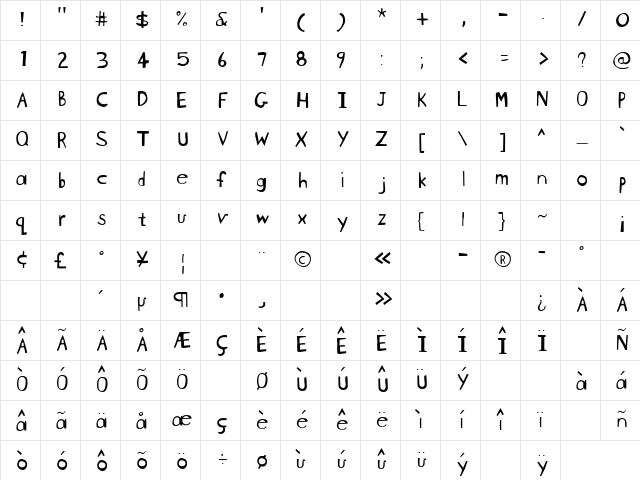
BlockheadUplugged Regular
| Foundry | Emigre Inc. |
| Designer | John Hersey |
Design Context for BlockheadUplugged Typeface
BlockheadUplugged is a composed and adaptable typeface that performs quietly and consistently across a wide range of design contexts.